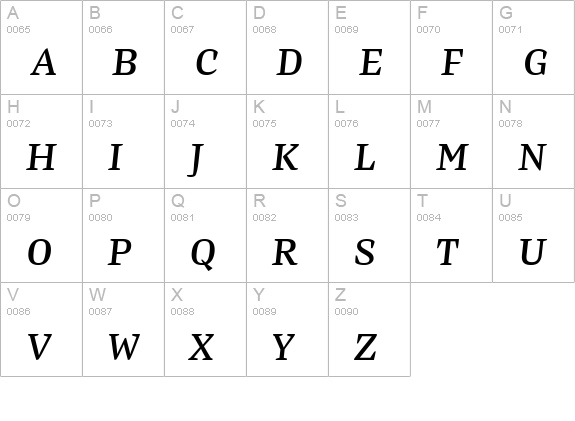
PretoSerifOTStd Regular 4 is the standard, neutral variant in the PretoSerifOTStd typeface family \xE2\x80\x94 well suited to general body text, paragraphs, and standard typographic work.
PretoSerifOTStd Regular 4 font exudes elegance and sophistication with its timeless serif design. Its balanced letterforms and subtle curves make it perfect for a wide range of projects, from print materials to digital designs. This versatile font offers a classic yet contemporary look that will elevate any text it graces. The best part? PretoSerifOTStd Regular 4 font is available for free download at FontsMarket.com. Now you can add a touch of refinement to your projects without breaking the bank. Don't miss out on this opportunity to enhance your typography game with this exquisite font.